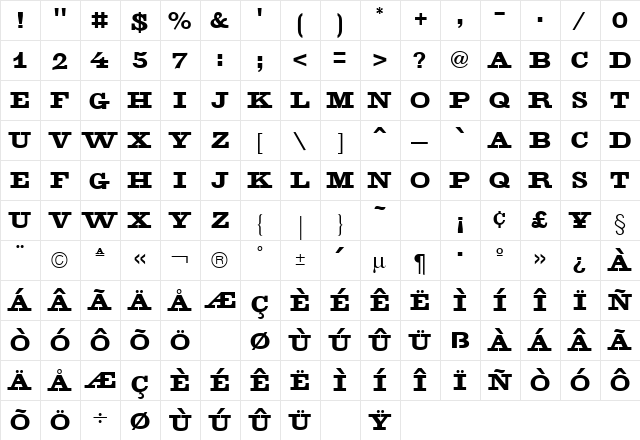
Industrial Regular
Design Context for Industrial Typeface
Industrial is a composed and adaptable typeface that performs quietly and consistently across a wide range of design contexts.